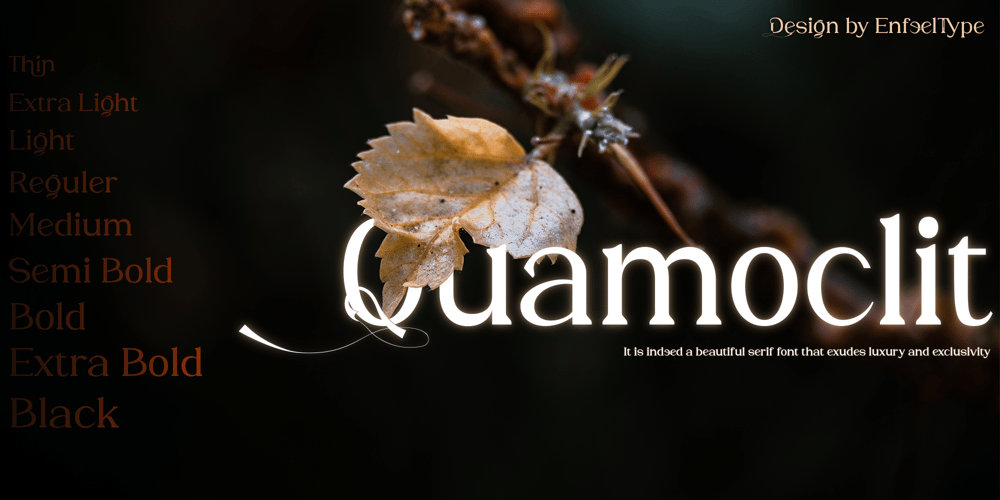
Quamoclit Font Family was designed by Muhammad Naufal and published by Enfeeltype. Quamoclit contains 9 styles and family package options. It is indeed a beautiful serif font that exudes luxury and exclusivity. Its elegant and refined design makes it a popular choice for high-end branding, editorial design, and fashion publications. I completely agree with you! Quamoclit’s unique style and exquisite details make it a perfect fit for any project that requires a touch of sophistication and elegance. It is no wonder that it has become a go-to choice for luxury brands and high-end publications.